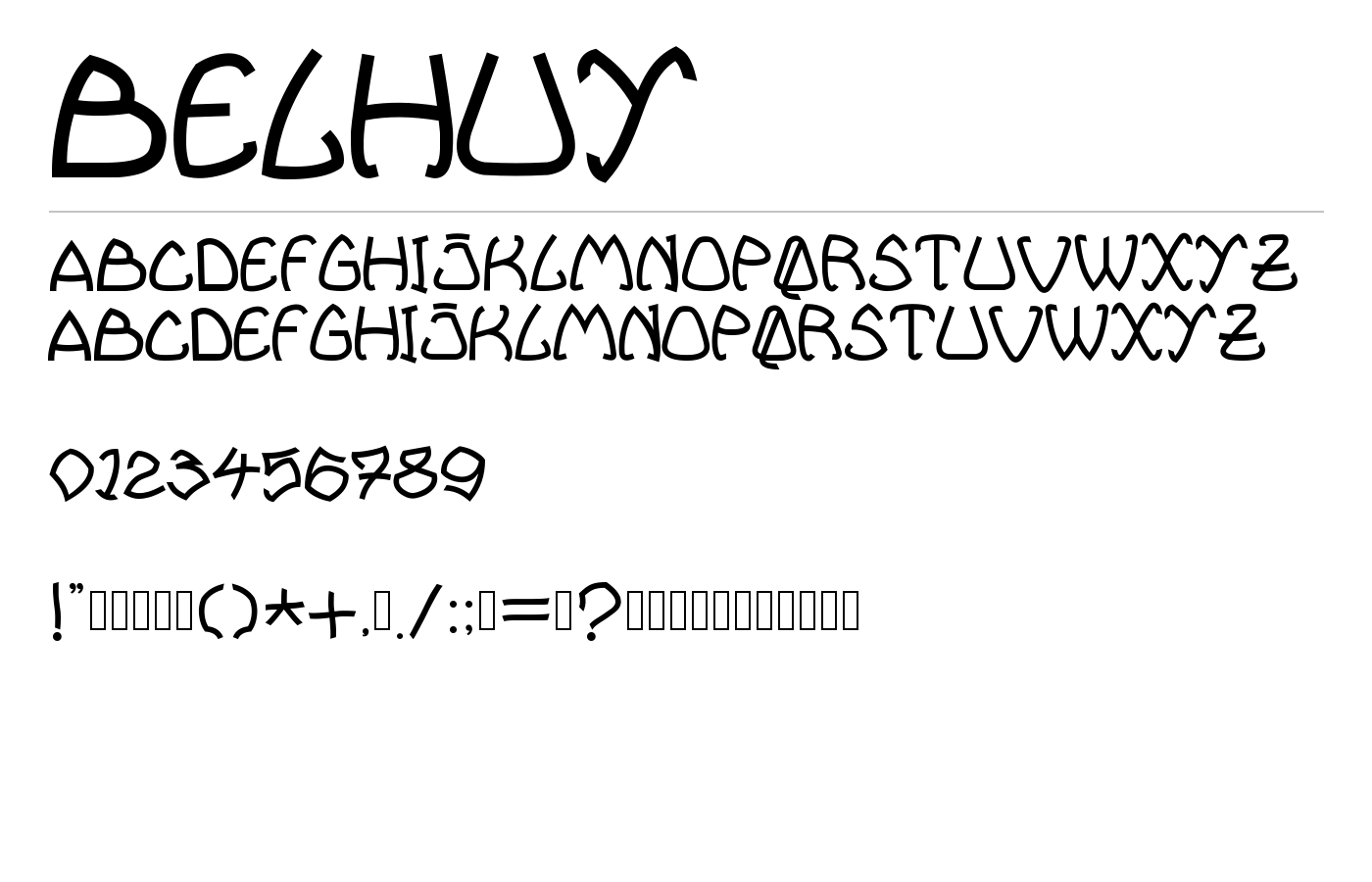
Belhuy is a playful and quirky sans serif font with an informal, hand-drawn feel. Its irregular, slightly curved letterforms and unique character shapes give it a lively and creative personality, making it ideal for casual branding, children’s designs, and any project that benefits from a fun and approachable look. This font shines in headlines, logos, and expressive display uses where a lighthearted touch is desired.
Belhuy Font
About Belhuy Font